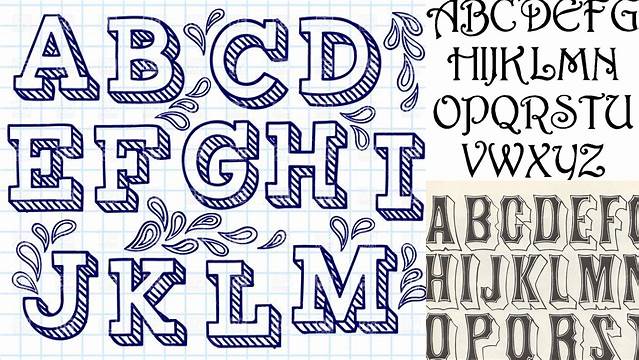
Cool Fonts For Designs To Elevate Your Projects
Hey guys! Are you on the hunt for cool fonts to seriously level up your design game? You've landed in the right spot! In today's design landscape, the typography you choose can make or break your project. A killer font can grab attention, set the mood, and even communicate your message more effectively. Think of it this way: your font is the voice of your design, and you want that voice to be both heard and remembered. But with literally thousands of fonts out there, how do you even begin to pick the perfect one? Don't worry; we're going to break it all down for you. We'll explore a bunch of different font styles, talk about what makes them tick, and give you some real-world examples of how they can be used. Whether you're designing a logo, a website, a poster, or even just a social media post, the right font can transform your creation from 'meh' to 'magnificent'. So, buckle up, font fanatics! Let's dive into the wonderful world of typography and discover some seriously cool fonts that will make your designs pop!
Why Choosing the Right Font Matters
Okay, so why all the fuss about fonts, you might ask? Well, the truth is, the fonts you select are way more important than you probably think. It's not just about picking something that looks pretty (although that's definitely a factor!). The right font can actually make a huge difference in how your design is perceived, how well your message is communicated, and even how people feel when they look at your work. Think of fonts as the unspoken language of design. They have the power to convey emotions, set a tone, and create a visual hierarchy that guides the viewer's eye. A bold, modern sans-serif font, for example, might project a sense of confidence and innovation, making it a great choice for a tech company's logo. On the other hand, a delicate, flowing script font might evoke feelings of elegance and romance, making it perfect for wedding invitations or a high-end fashion brand. But it goes even deeper than that. The right font can also improve readability and accessibility. If your text is difficult to read, people are going to tune out, no matter how awesome your design is. Choosing a font with clear letterforms, appropriate spacing, and good legibility will ensure that your message gets across loud and clear. And let's not forget about consistency. Using the same font family across all your designs creates a cohesive brand identity and helps people recognize your work at a glance. So, before you just grab the first font that catches your eye, take some time to really consider what message you want to send and how you want your audience to feel. Your font choices can make or break your design, so choose wisely!
Exploring Different Font Styles
Now that we've established why choosing the right font is crucial, let's explore some of the different font styles out there. It's like stepping into a candy store for designers – so many delicious options! Understanding the basic categories of fonts will help you narrow down your choices and find the perfect fit for your project. First up, we have Serif fonts. These fonts are characterized by the small decorative strokes (the "serifs") at the ends of the letterforms. Think of fonts like Times New Roman or Garamond. Serifs often convey a sense of tradition, authority, and elegance. They're commonly used in books, newspapers, and formal documents because they're considered highly readable in large blocks of text. Next, we have Sans-serif fonts. As the name suggests, these fonts don't have serifs. They have a cleaner, more modern look and feel. Arial, Helvetica, and Open Sans are popular examples. Sans-serif fonts are often used for headlines, logos, and websites because they're easy to read on screens. Then there are Script fonts. These fonts mimic the look of handwriting or calligraphy. They can range from elegant and formal to playful and casual. Script fonts are great for adding a personal touch to your designs, but they should be used sparingly, as they can be difficult to read in large blocks of text. Display fonts are designed to be eye-catching and attention-grabbing. They come in a wide variety of styles, from bold and geometric to quirky and whimsical. Display fonts are perfect for headlines, posters, and other designs where you want to make a statement. And finally, we have Monospace fonts. In these fonts, each letter takes up the same amount of horizontal space. Monospace fonts are often used for coding, typewriting, and creating a technical or retro feel. So, that's a quick overview of the main font styles. Each category has its own unique personality and strengths, so experiment with different options to see what works best for your design!
Cool Fonts for Various Design Projects
Alright, let's get to the fun part – cool fonts for specific design projects! We're going to look at some awesome font choices for logos, websites, posters, and more. Remember, there's no one-size-fits-all answer when it comes to fonts, but these suggestions will give you a great starting point. For logos, you want a font that's memorable, versatile, and reflects your brand's personality. If you're going for a modern and minimalist look, consider a clean sans-serif like Montserrat, Bebas Neue, or Futura. These fonts are sleek, legible, and work well in a variety of sizes. If you want to convey a sense of tradition and authority, a classic serif like Playfair Display or Merriweather might be a good choice. And for brands that want to project creativity and uniqueness, a display font like Bellerose or Audrey can really make a statement. When it comes to websites, readability is key. You want a font that's easy on the eyes, even when viewed on a screen for extended periods of time. Open Sans, Roboto, and Lato are popular sans-serif options that are known for their excellent legibility. For headings, you can experiment with bolder fonts like Montserrat or Raleway to create visual hierarchy. If you're designing posters, you have a lot more freedom to get creative with your font choices. Display fonts are your best friend here! Think about fonts like Impact, Bebas Neue, or even a handwritten-style font like Amatic SC. Just make sure your font is legible from a distance and that it complements the overall design. For social media graphics, you want fonts that are eye-catching and easy to read on small screens. Montserrat, Open Sans, and Roboto are solid choices for body text, while bolder fonts like Bebas Neue or Oswald can be used for headlines. And if you want to add a touch of personality, consider a script font like Pacifico or a playful display font like Luckiest Guy. So, there you have it – some cool font ideas for different design projects. Don't be afraid to experiment and mix and match fonts to create your own unique look!
Tips for Pairing Fonts Like a Pro
Now, let's talk about font pairing – the art of combining different fonts to create a harmonious and visually appealing design. This can be a tricky skill to master, but with a few simple tips, you'll be pairing fonts like a pro in no time! The first rule of thumb is to contrast fonts. This means choosing fonts that are different enough from each other to create visual interest, but not so different that they clash. A classic pairing is a serif font for headings and a sans-serif font for body text, or vice versa. For example, you might pair Playfair Display (a serif) with Montserrat (a sans-serif) or Roboto (a sans-serif) with Merriweather (a serif). Another tip is to stick to a maximum of two or three fonts in your design. Using too many fonts can make your design look cluttered and confusing. It's better to choose a few fonts that work well together and use them consistently throughout your project. You can also use different weights and styles within the same font family to create visual hierarchy. For example, you might use a bold weight for headings and a regular weight for body text. Or you might use an italic style to emphasize certain words or phrases. When pairing fonts, consider the mood and tone of your design. If you're going for a formal and elegant look, you might choose classic serif fonts. If you want a more modern and playful feel, you might opt for sans-serif or display fonts. It's also a good idea to look for inspiration from other designers. Check out websites like Typewolf or FontPair to see examples of successful font pairings. And finally, don't be afraid to experiment! Font pairing is a creative process, so have fun and try out different combinations until you find what works best for your design. With a little practice, you'll be a font pairing master in no time!